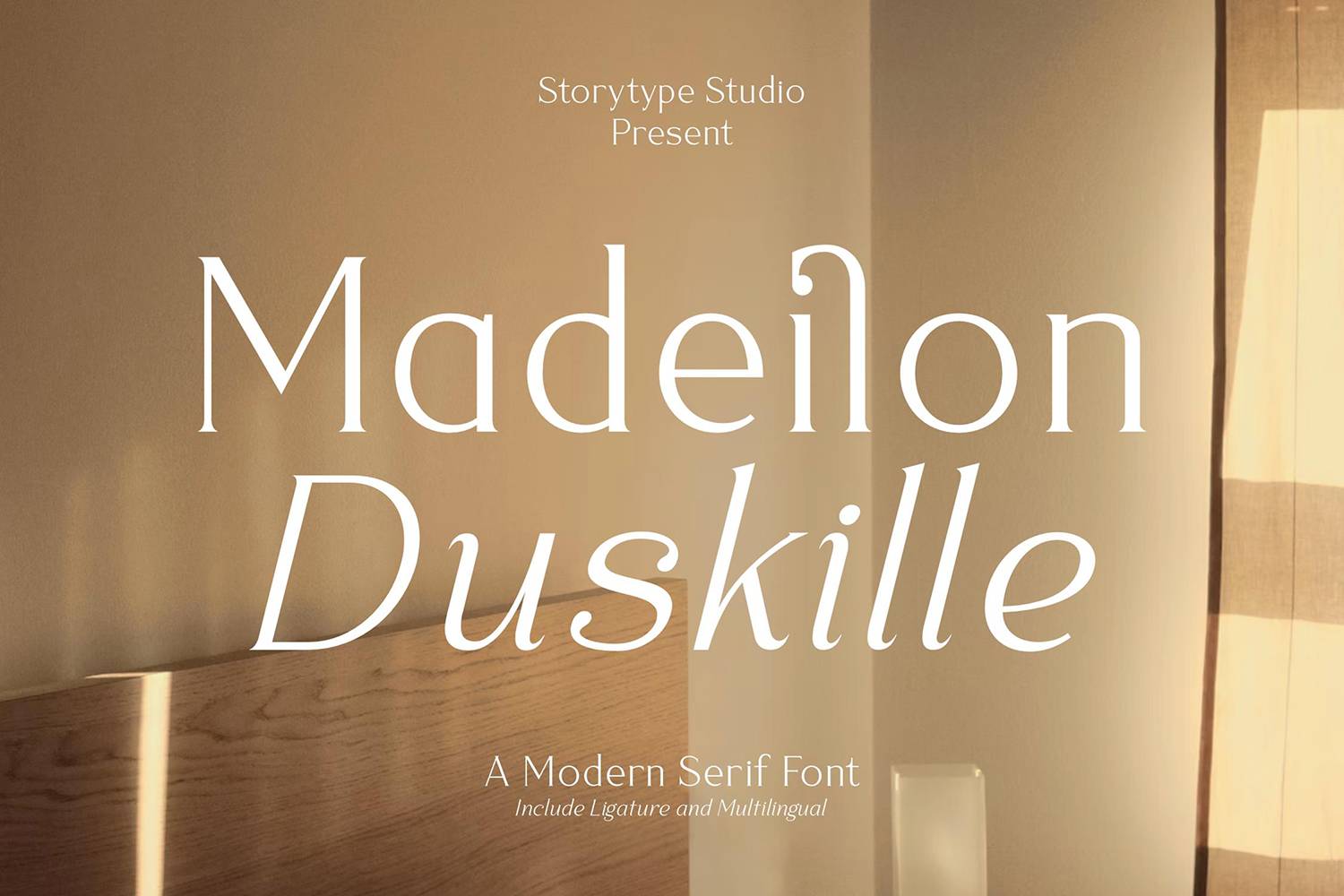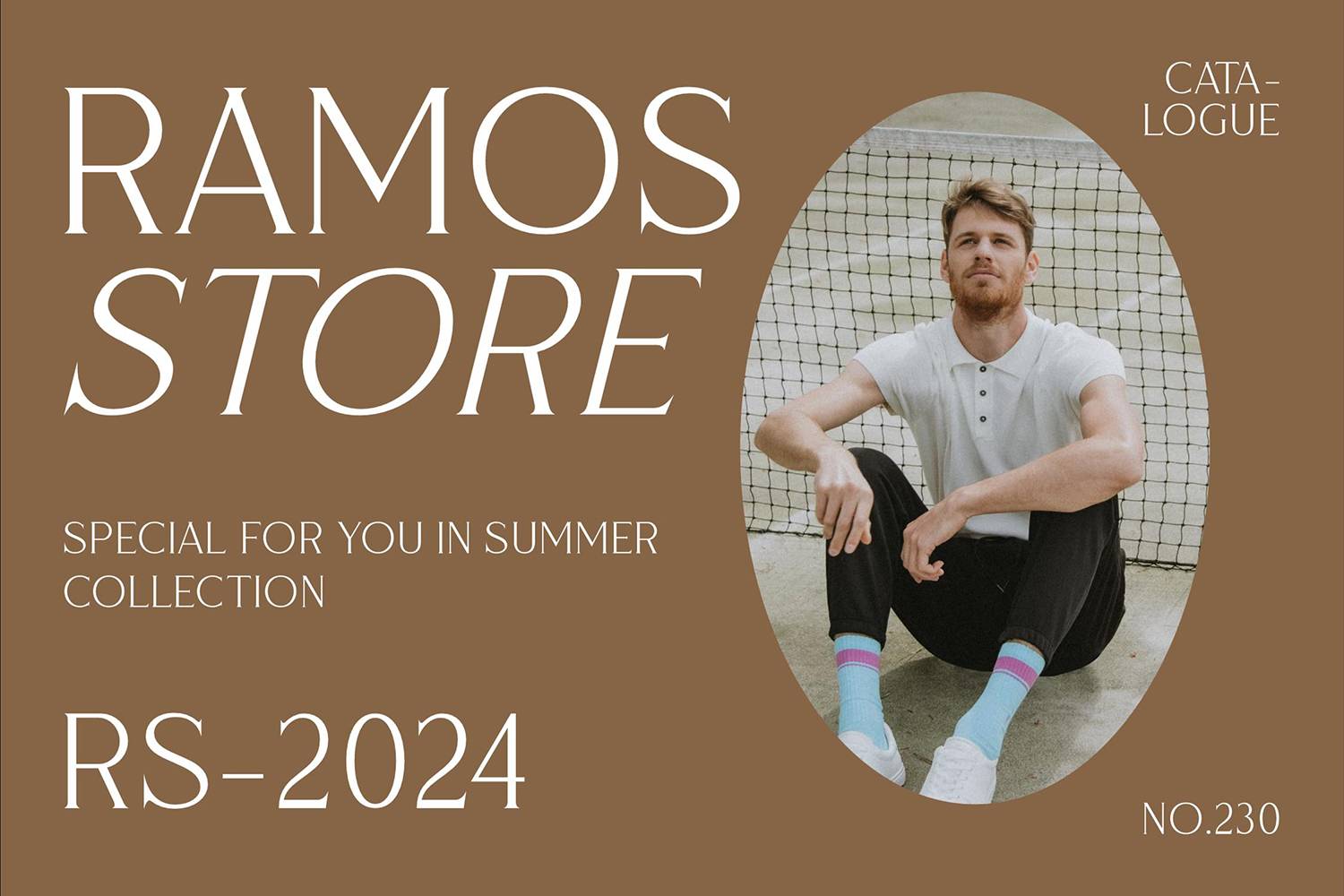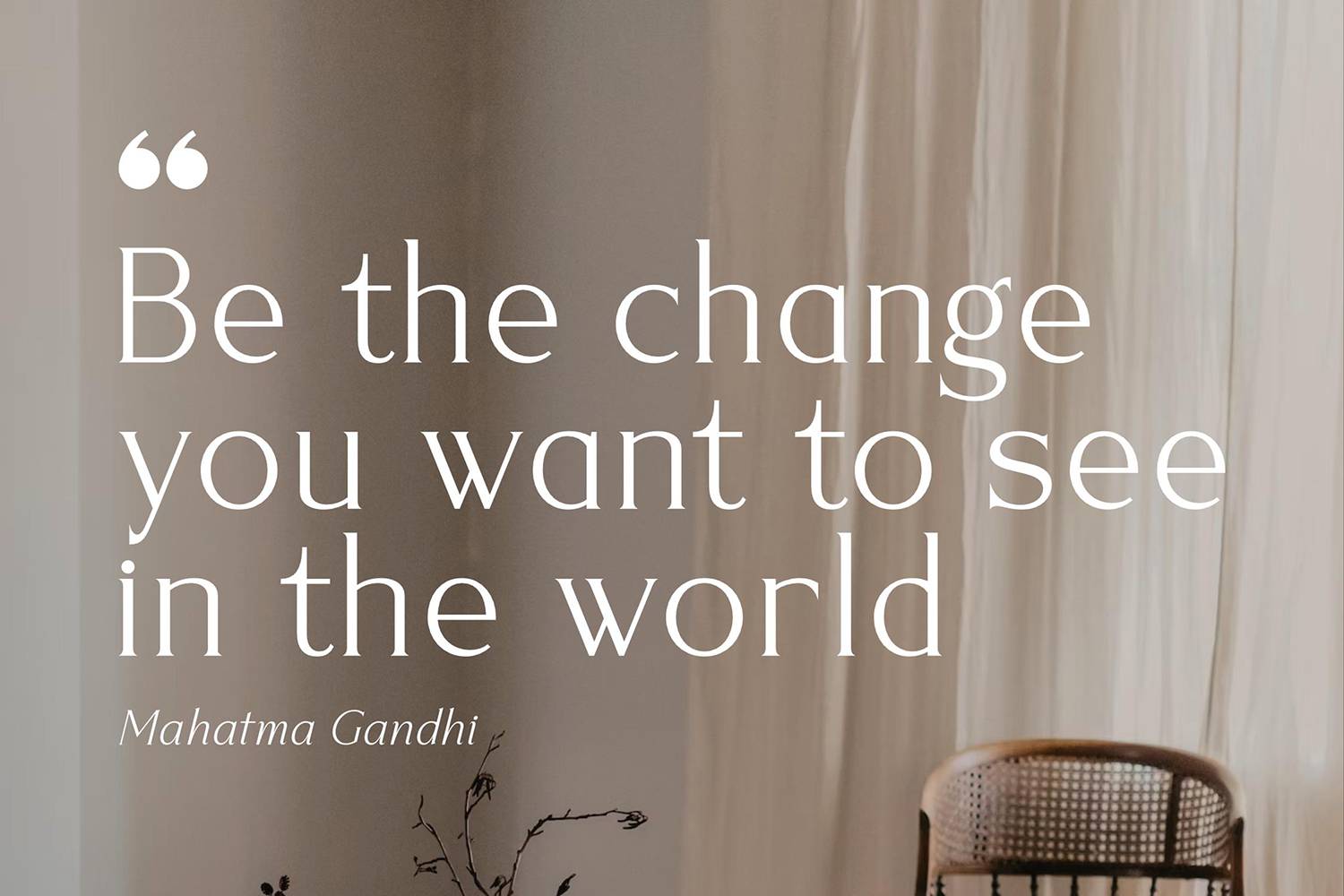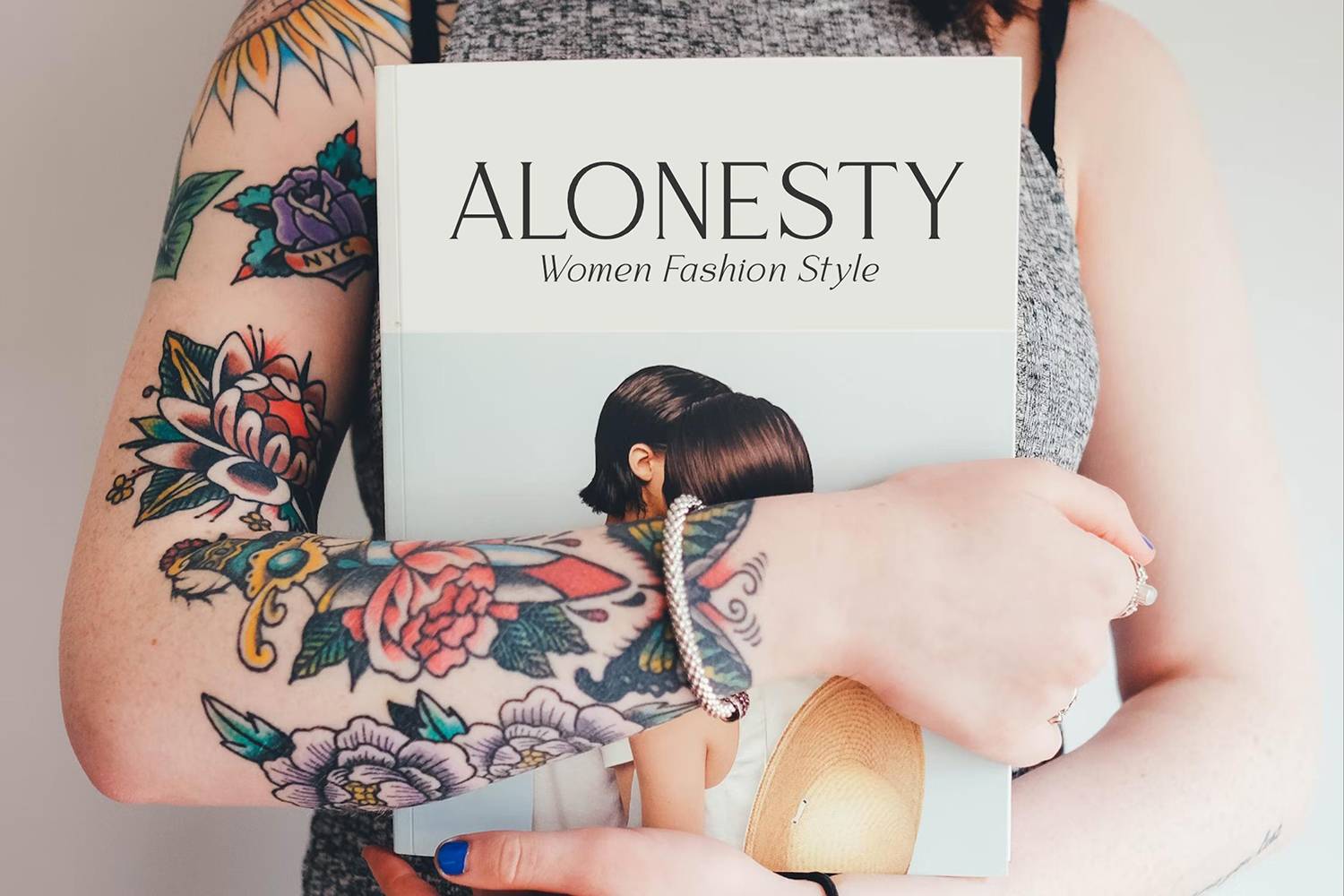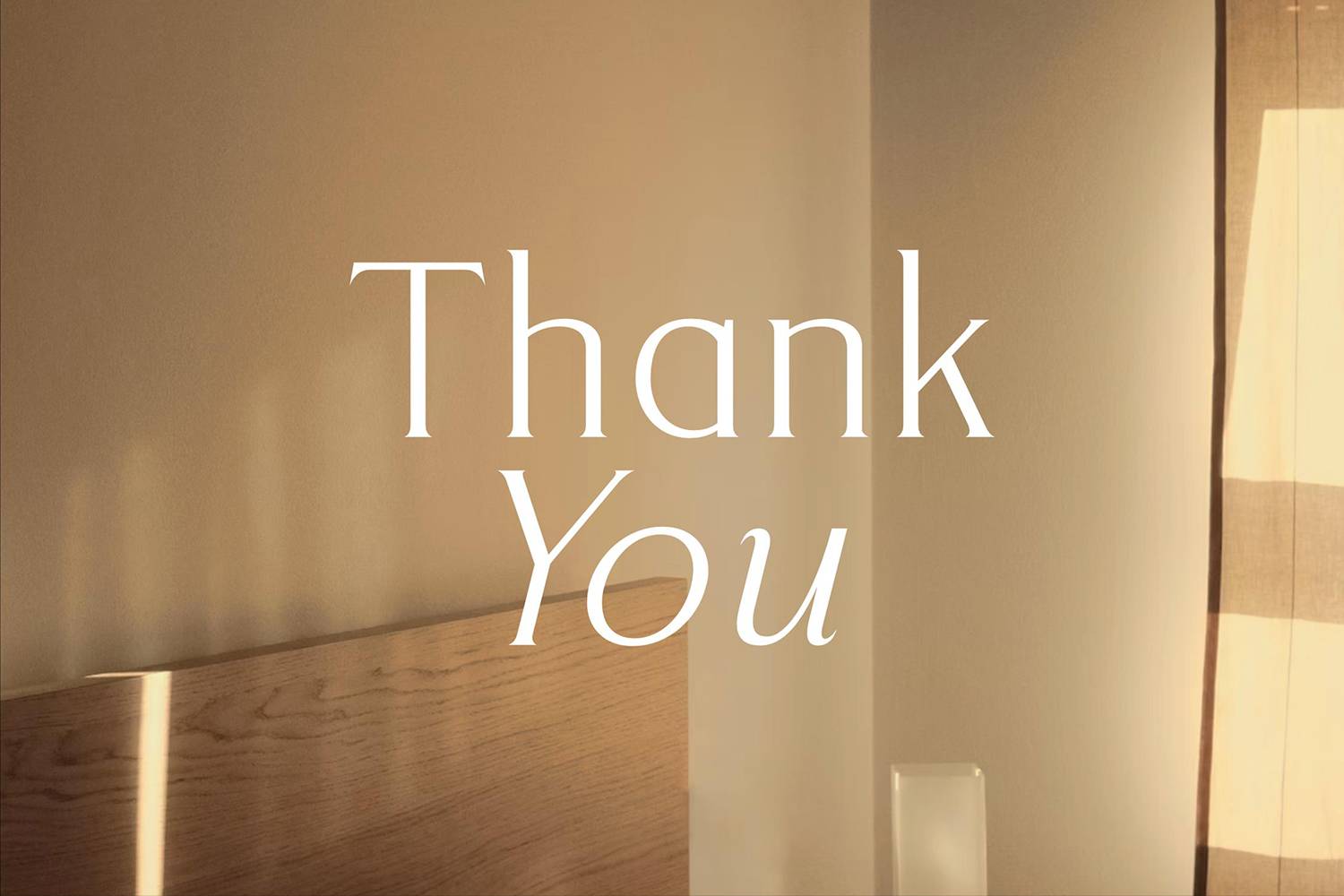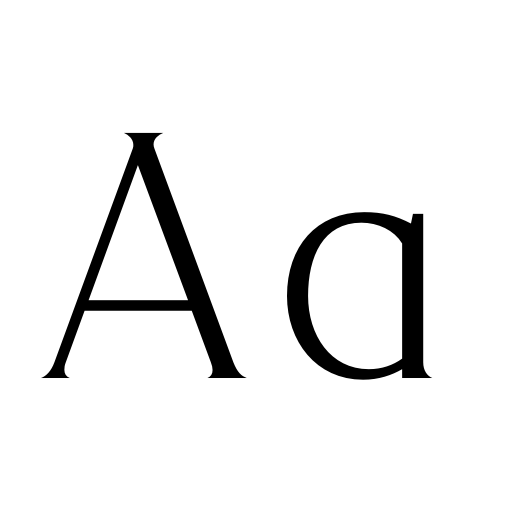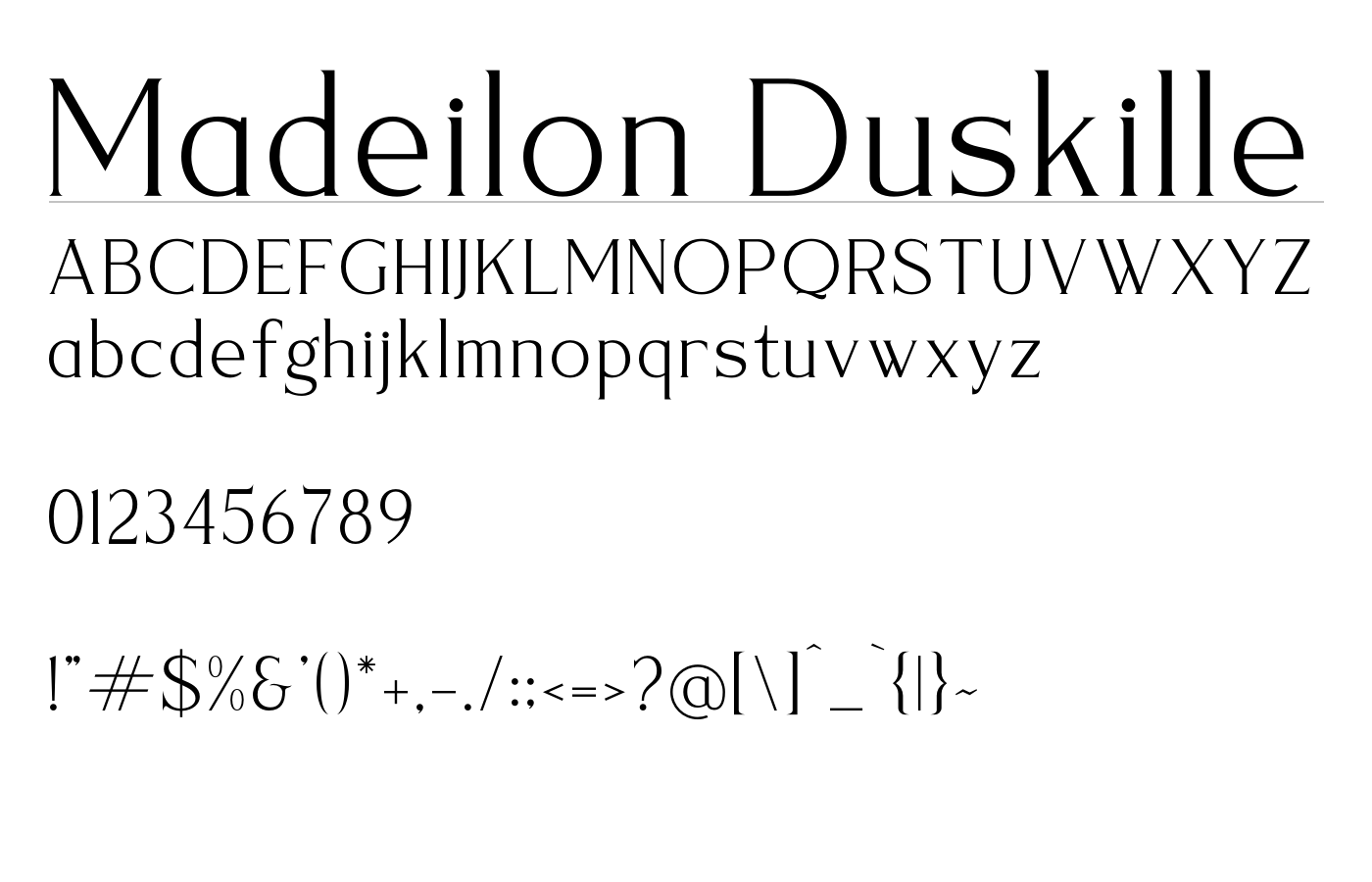
Madeilon Duskille is an elegant serif font characterized by its thin, delicate strokes and high contrast between thick and thin lines, giving it a refined, sophisticated look. Its narrow width and tall x-height offer a modern yet classic feel, making it ideal for luxury branding, editorial headlines, and fashion-focused designs where a sleek, polished appearance is desired. This font’s graceful serifs and distinctive letterforms convey both professionalism and style, perfect for upscale and artistic applications.
Madeilon Duskille